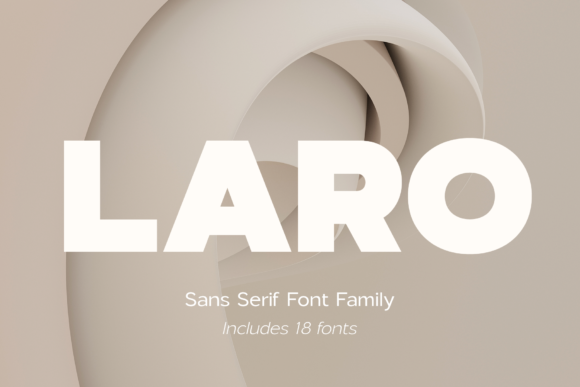
Introducing Laro Font, the ultimate choice for music poster enthusiasts and creative minds alike. This sans serif font, created by the talented Pasha Larin, combines simplicity with a bold thickness that will captivate your audience from the first glance.
Laro Font is more than just a typeface; it's a gateway to unlocking your artistic potential. With its versatility and timeless appeal, this font breathes life into a wide range of crafting ideas. Whether you're designing cards, launching a new brand, or creating labels, Laro Font is the perfect companion for your creative journey.
Immerse yourself in the world of endless possibilities as you confidently add Laro Font to your favorite creations. Watch as your designs come alive with a touch of elegance and sophistication that only Laro Font can provide. Stand out from the crowd and leave a lasting impression on your audience with this eye-catching font.
But Laro Font isn't just about aesthetics; it's about evoking emotions and creating connections. With its powerful presence, this font has the ability to stir up excitement, invoke nostalgia, and inspire action. Let the harmonious blend of simplicity and boldness transport your audience to a world where music and design collide.
Imagine the impact of a music poster that not only catches the eye but also resonates with the soul. Laro Font brings your musical vision to life, allowing you to convey the essence of your artistry in a way that words alone cannot. It's the missing piece that completes the puzzle, transforming your design into a masterpiece.